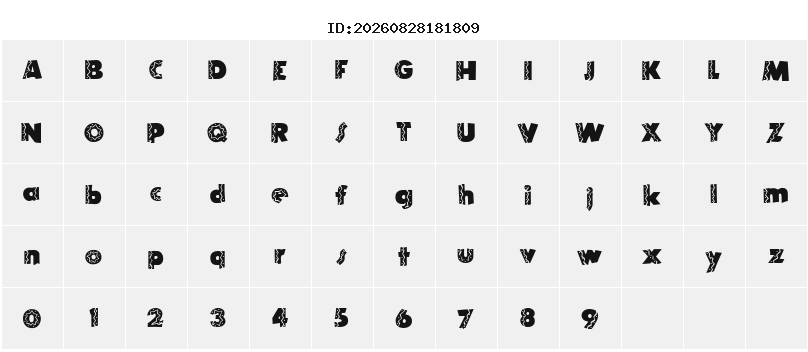
Tijuana Preview
• Font Name: Tijuana
• Font ID: Alts:El Rio Lobo
• Full Font Name: Tijuana Medium
• Version: 1.0 Thu Nov 04 00:15:45 1993
• PostScript Name: El-RioLobo
• Character Count: 160
About Tijuana.ttf
Tijuana.ttf is a modern, elegant sans-serif font designed for ultimate readability and visual harmony. Perfect for branding, headlines, web design, and print materials.